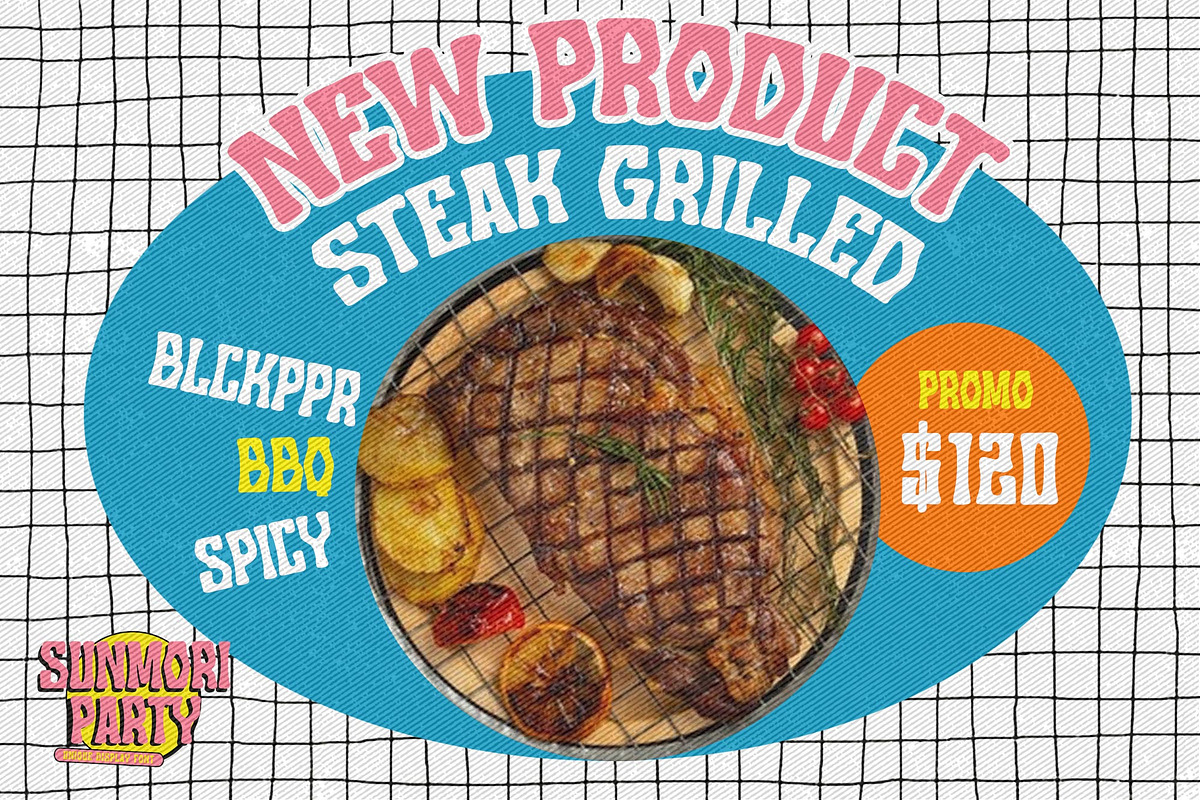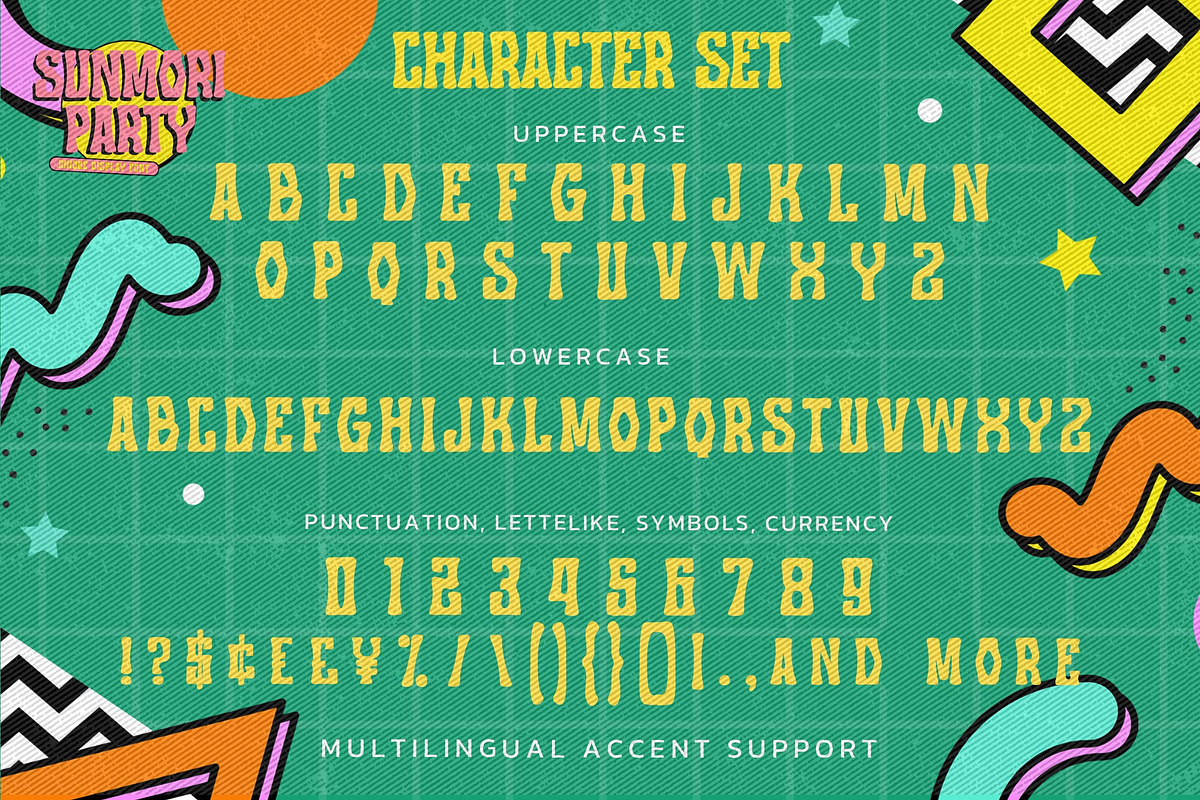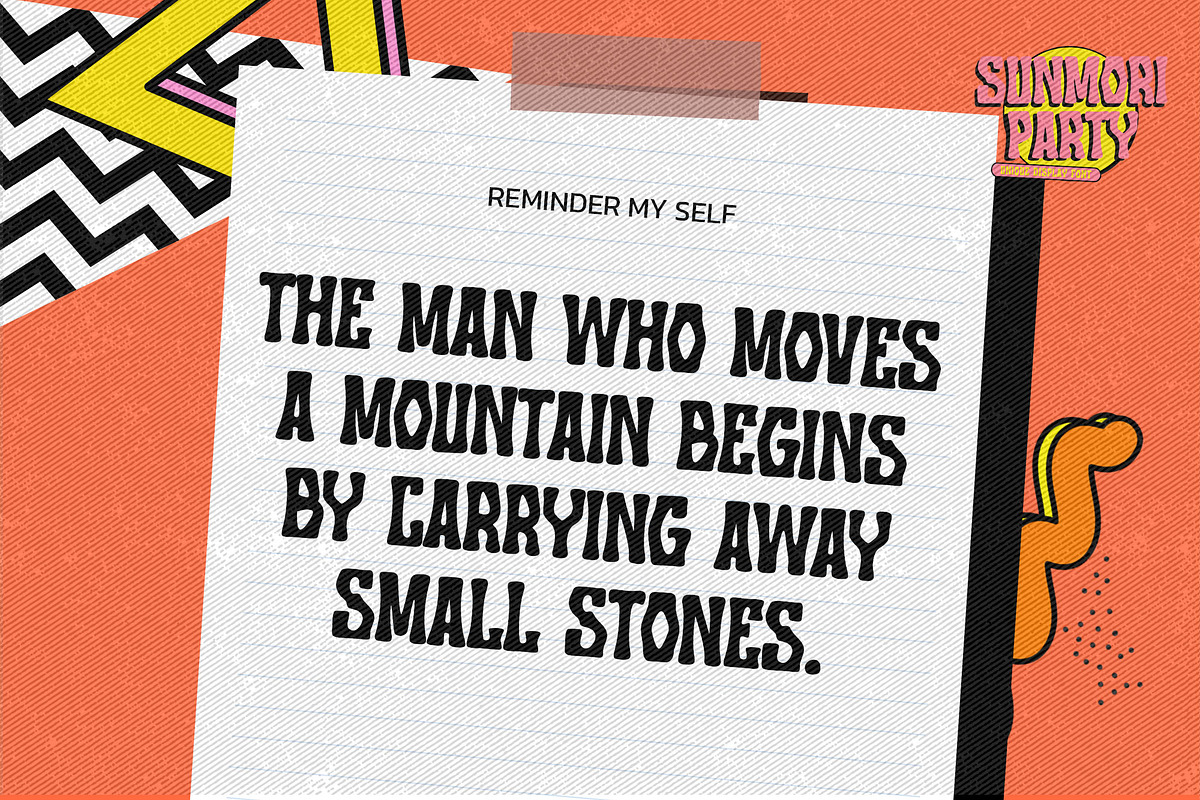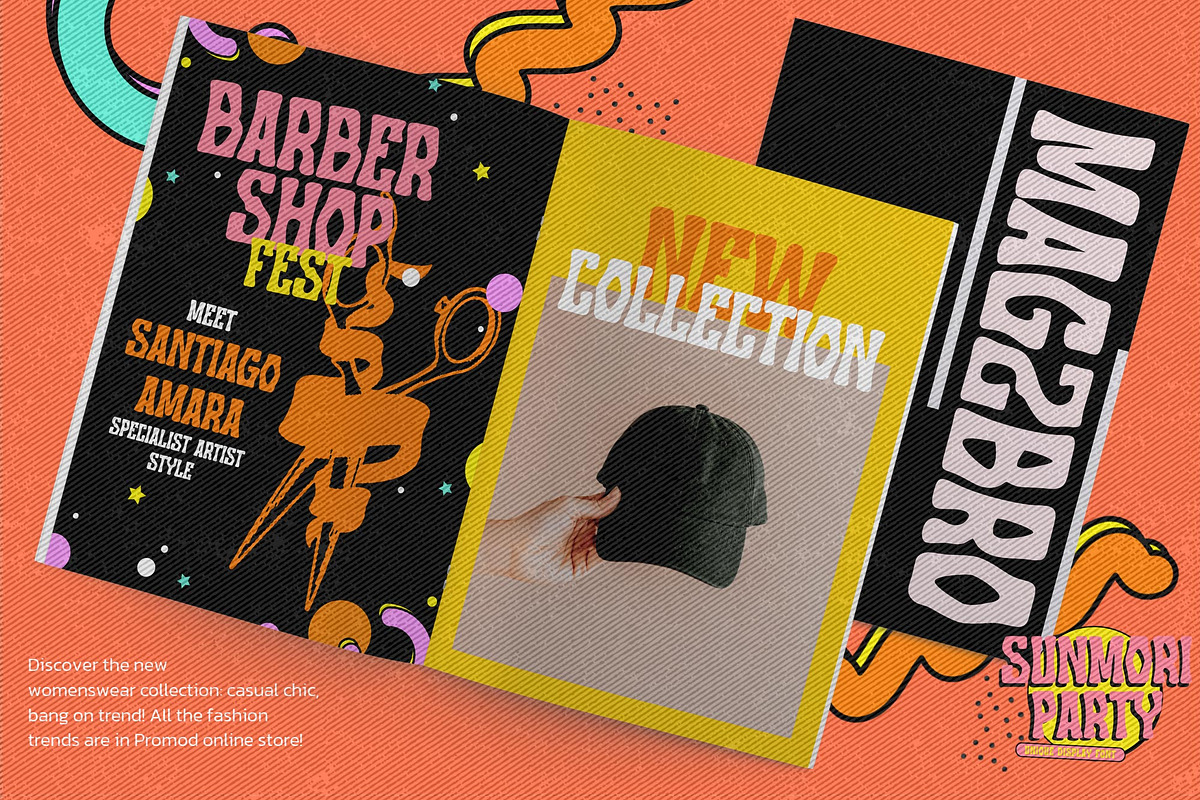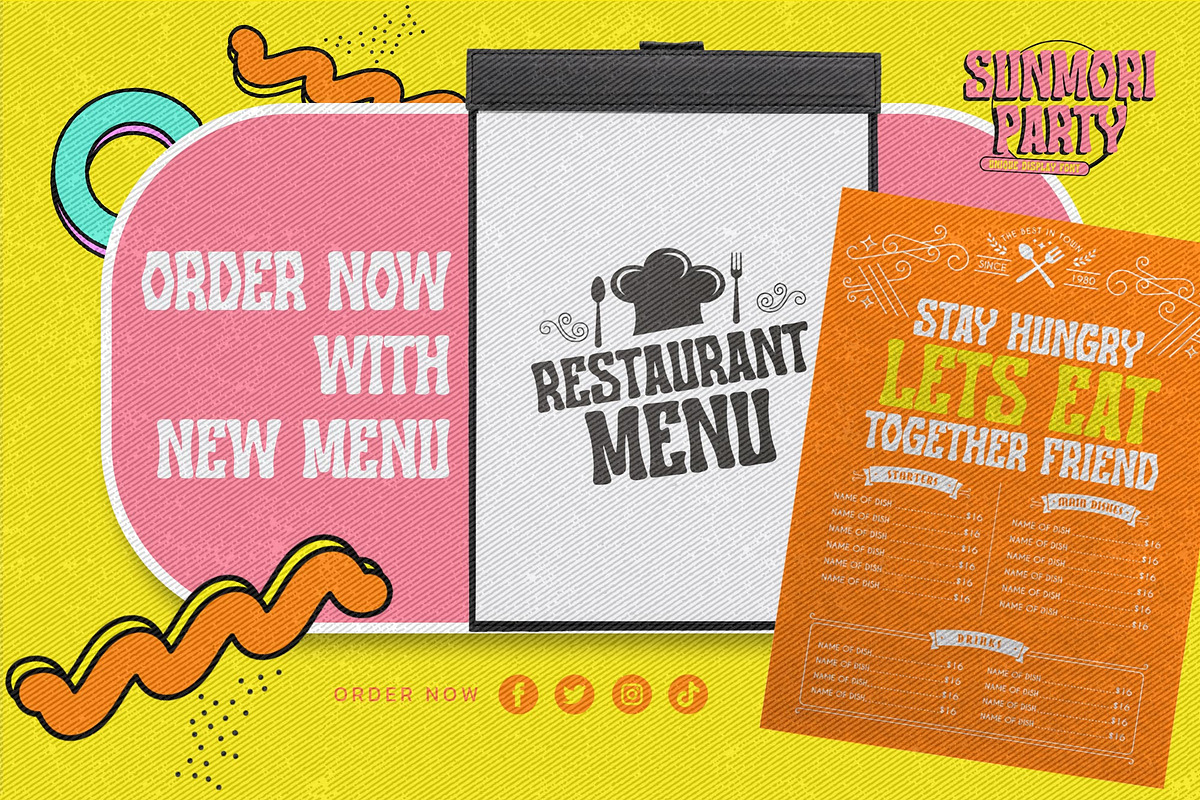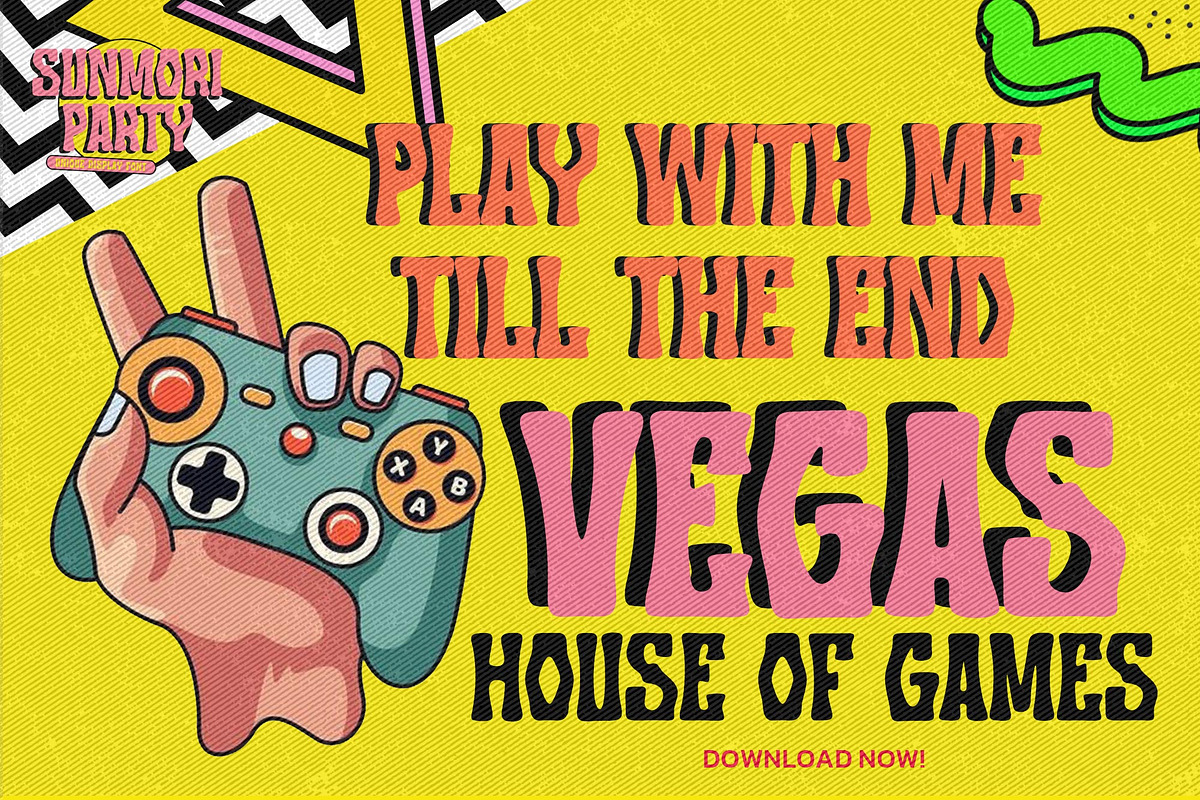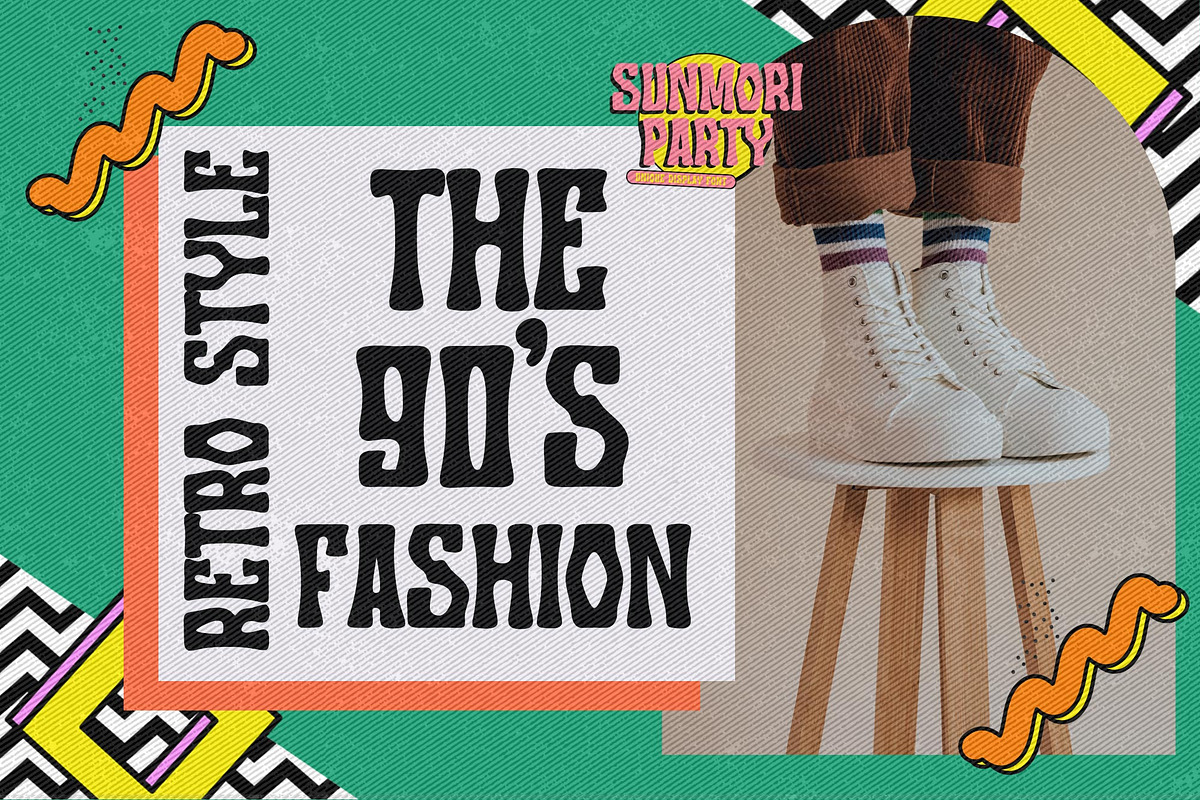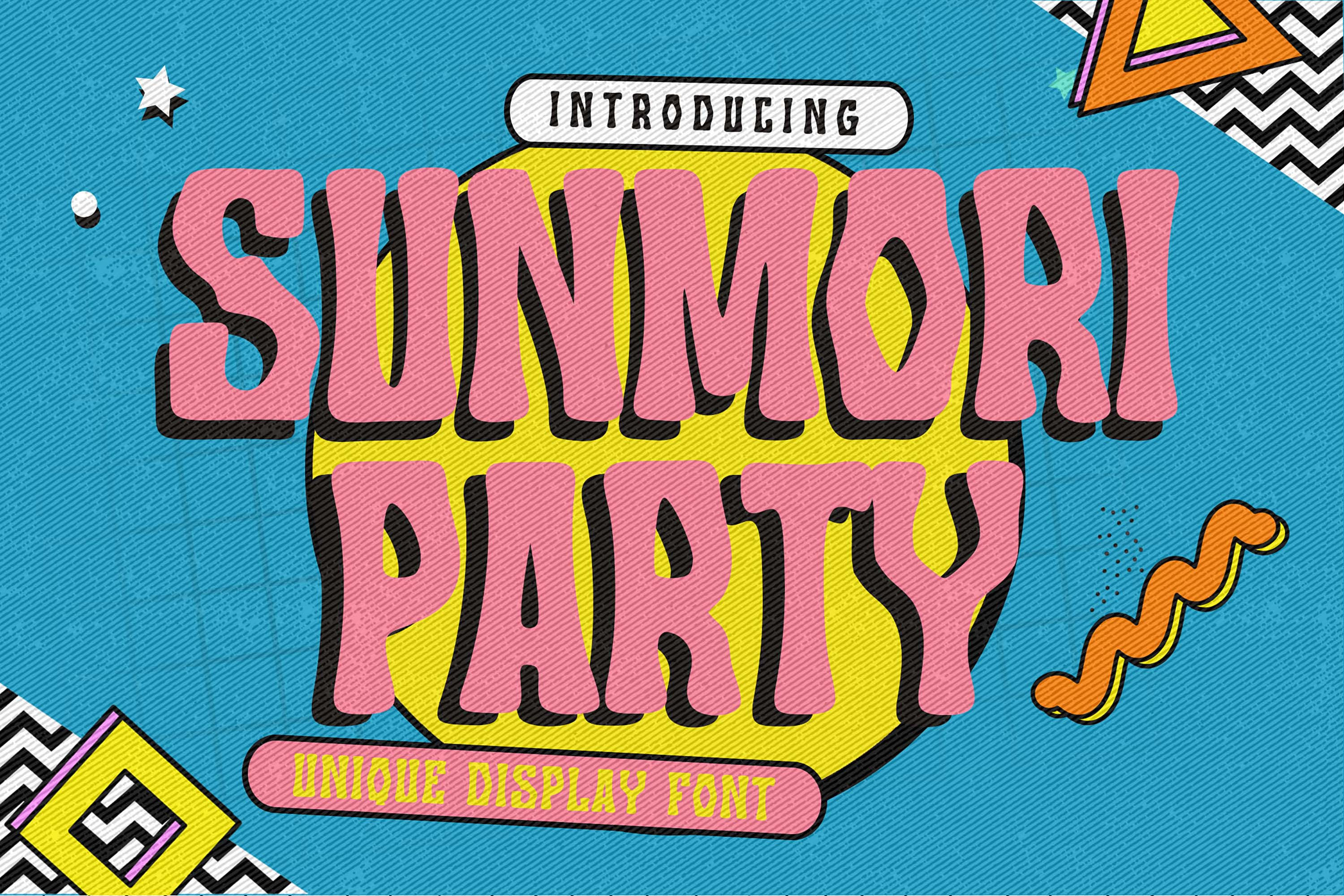
Sunmori Party - Unique Display Font
Here comes a New font, Sunmori Party is Unique Display Font this is strong Font and cool, that is written casually and quickly amazing. Then crafted carefully drawn into vector format. This font is great for your next creative project such as logos, printed quotes, invitations, cards, product packaging, headers, Logotype, Letterhead, Poster, Label, and etc.It is perfect for any design project as Invitation,logo, book cover, craft or any design purposes.this font is great for your creative projects such as watermark on photography, and perfect for logos & branding, invitation, designs, stationery, wedding designs,label ,product packaging, special events or anything that need handwritting taste. That is Font Sunmori Party has Stylish,Cool and Unique characteristic more natural look to your text with a more modern look to your text.